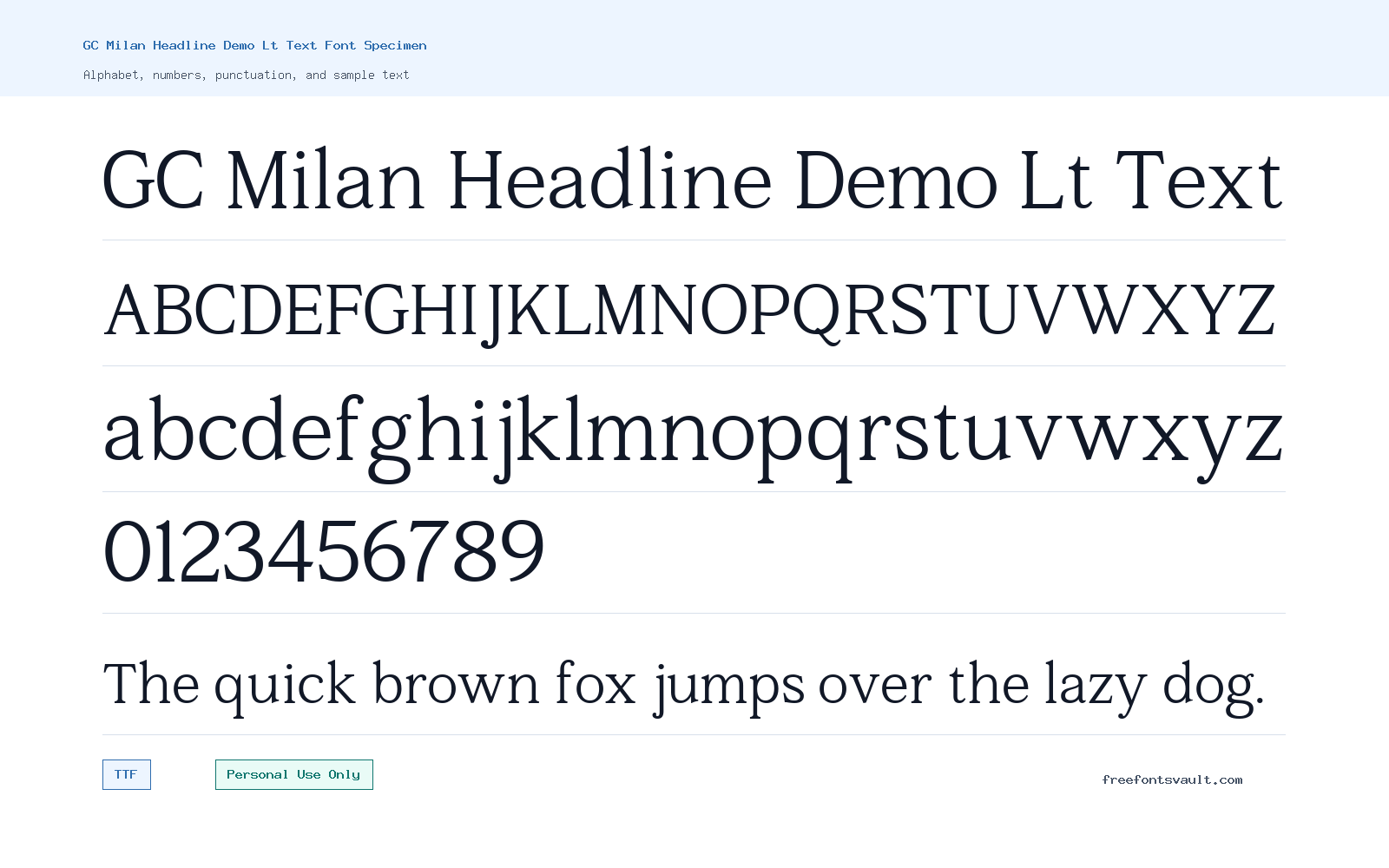
GC Milan Headline Demo Lt Text
• Designer Zainaldi Ibrahim of Glyphonic
• Foundry Glyphonic
GC Milan Headline Demo Lt Text is a light-weight serif font made for people who want a refined headline style without using a heavy or crowded display face.
GC Milan Headline Demo Lt Text has a delicate, editorial look that fits best when the text has room to breathe. The Light Text weight keeps the page feeling clean, so it can work well for titles, short introductions, elegant headings, and small blocks of feature copy. Because it is a headline demo style, it should be tested carefully before using it for long reading passages. Thin serif details can look beautiful at larger sizes, but they may lose clarity if the font is used too small, on low-resolution screens, or over busy backgrounds.
• Light serif headline style with a clean, restrained appearance
• Editorial headlines, blog titles, feature headers, and elegant intro text
GC Milan Headline Demo Lt Text is credited to Zainaldi Ibrahim of Glyphonic, with Glyphonic listed as the foundry.
For best results, use this light weight at medium to large sizes and test it with your real headline text before finalizing a layout. It is better suited to short, polished text than dense paragraphs. If you need body copy, combine it with a readable sans serif or neutral serif and let GC Milan Headline Demo Lt Text handle the display role.
What type of font is GC Milan Headline Demo Lt Text?
What is this font best used for?
It is best for short display text such as headlines, article titles, refined intro lines, invitations, and personal design previews. It is not the safest choice for long paragraphs.
Who designed GC Milan Headline Demo Lt Text?
The font is credited to Zainaldi Ibrahim of Glyphonic.
How should I pair this font?
Pair it with a simple sans serif or a very readable text face. Keep the supporting font quiet so the light serif headline can stay clear and elegant.